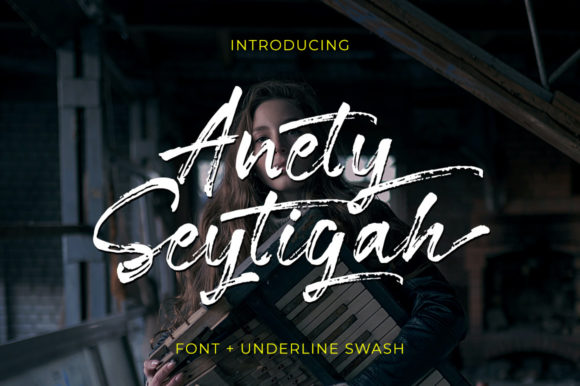
Step into a world of elegance and poise with Anety Seytigah, a script font that exudes sophistication and grace. Its sweeping strokes and delicate curves capture the essence of timeless beauty, adding a touch of charm to any project.
Unleash your creativity and let your imagination soar with Anety Seytigah's versatile personality. Effortlessly adapt this font to a multitude of designs, from captivating logos and branding materials to eye-catching social media posts and wedding invitations.
Transport yourself to a world of endless possibilities with Anety Seytigah's carefully crafted alternates and ligatures. Seamlessly blend characters to create stunning combinations that elevate your designs and leave a lasting impression.
Experience the joy of seamless creativity with Anety Seytigah's PUA encoding. Effortlessly access the full range of glyphs and swashes, unlocking a world of customization and artistic expression. Bring your vision to life with ease and precision.
Embrace the allure of Anety Seytigah, a font that embodies confidence and style. Its meticulously designed characters dance across the page, captivating your audience and leaving them spellbound.